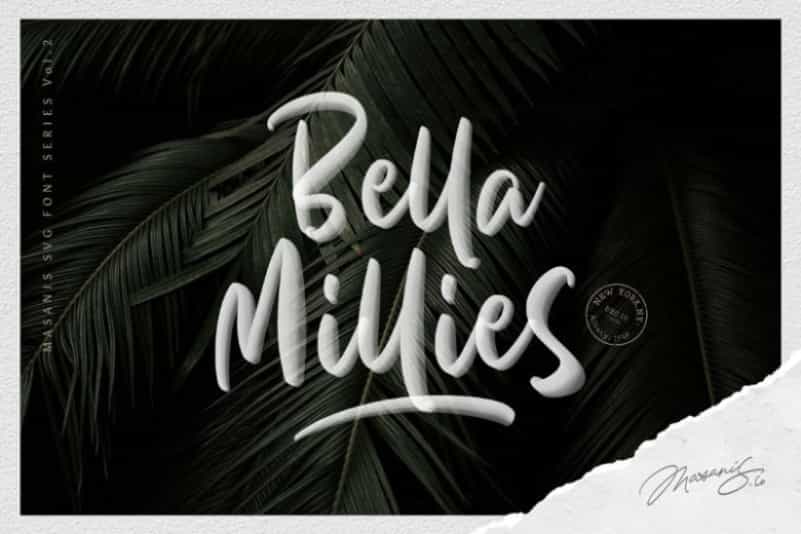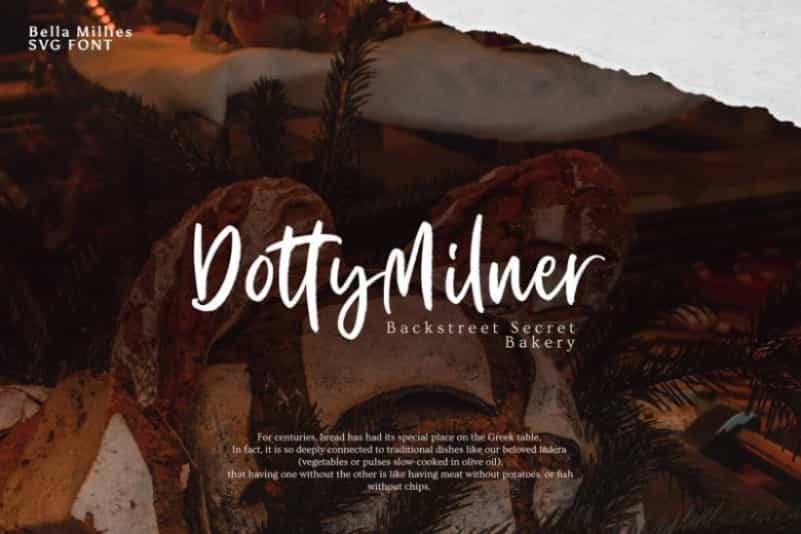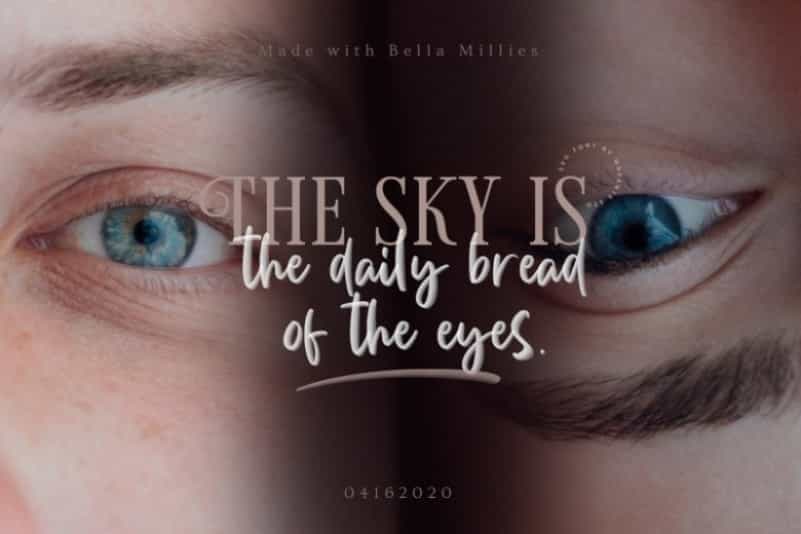
Discover Bella Millies Script Font, part of the Brush Handwritten collection—a versatile and unique font perfect for adding a personal touch to your projects. Download it for free and enjoy crafting designs with style, from invitations to social media posts. This font is available exclusively for personal use, giving you the freedom to create without limits. Unlock your creativity with Bella Millies Script Font today!
Say hello to Bella Millies Font! This lovely typeface is. Shared by Masanis. This contemporary SVG font features a sharpie style making it ideal, for creating signature logos, printed quotes, wedding invitations, social media headers, product packaging and various other design projects.